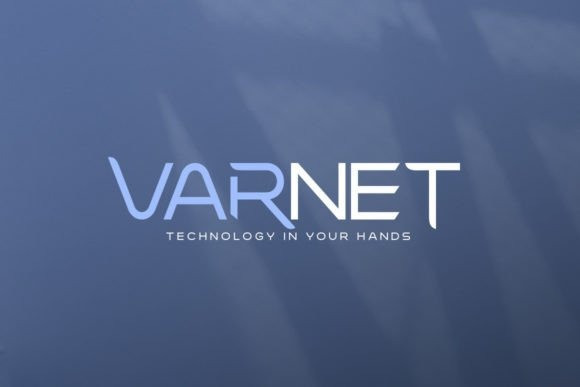
Micker Font
Micker Font is a modern and futuristic sans serif font. Micker font suitable for logo, branding, greeting card, poster and any design that you create…!